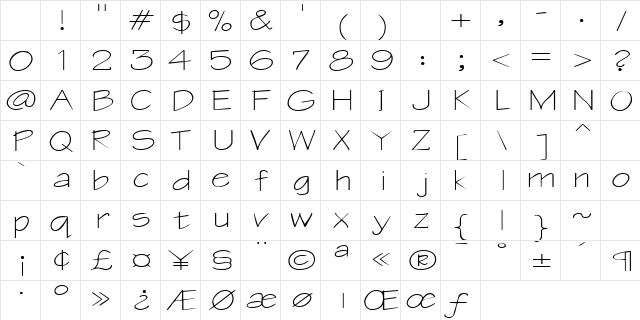
BlueprintExtended Regular
Design Context for BlueprintExtended
BlueprintExtended is a composed and adaptable typeface that performs quietly and consistently across a wide range of design contexts.
Pro Tip: Use BlueprintExtended in both headline and body roles to test its range before committing to a single application.